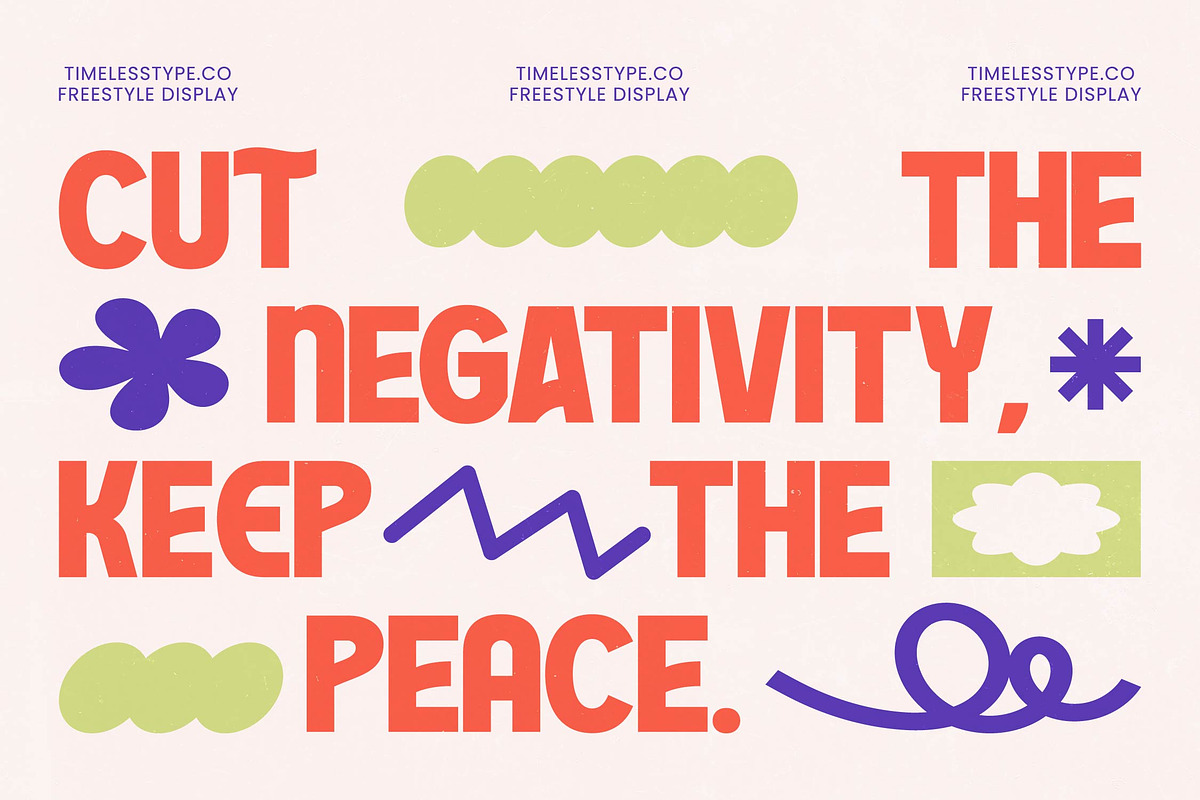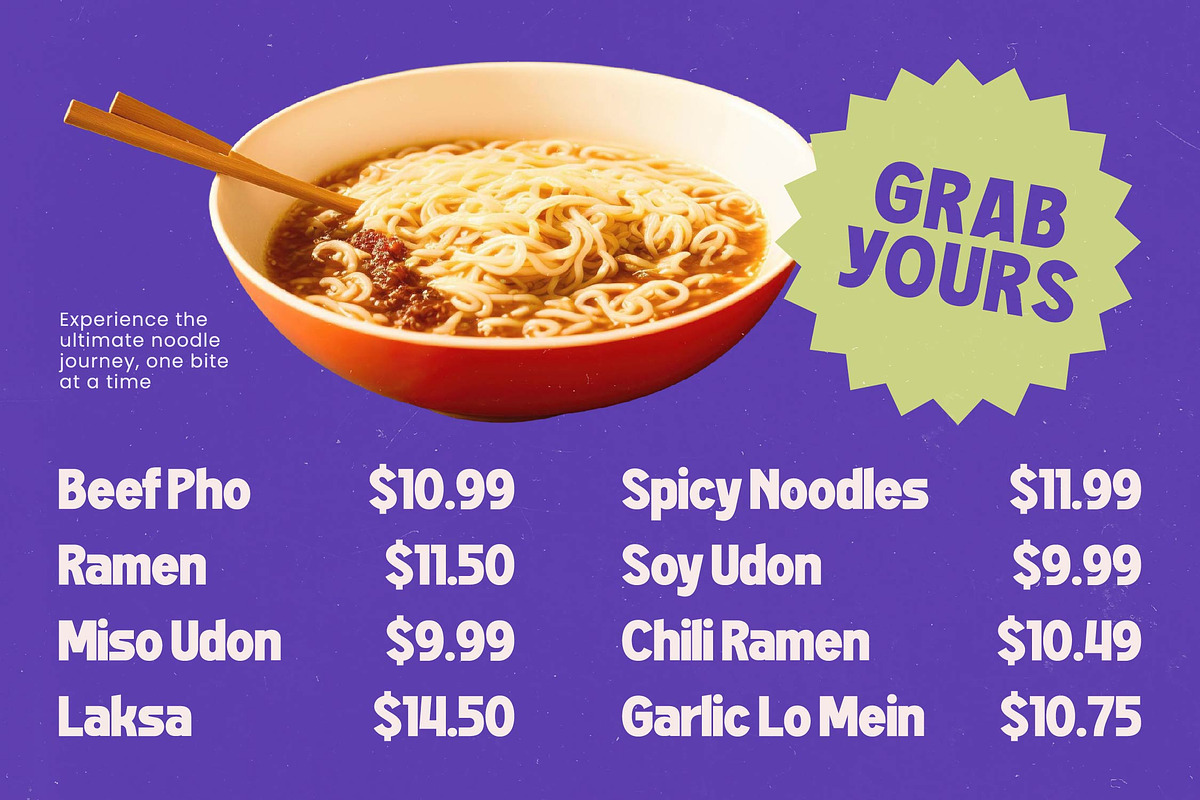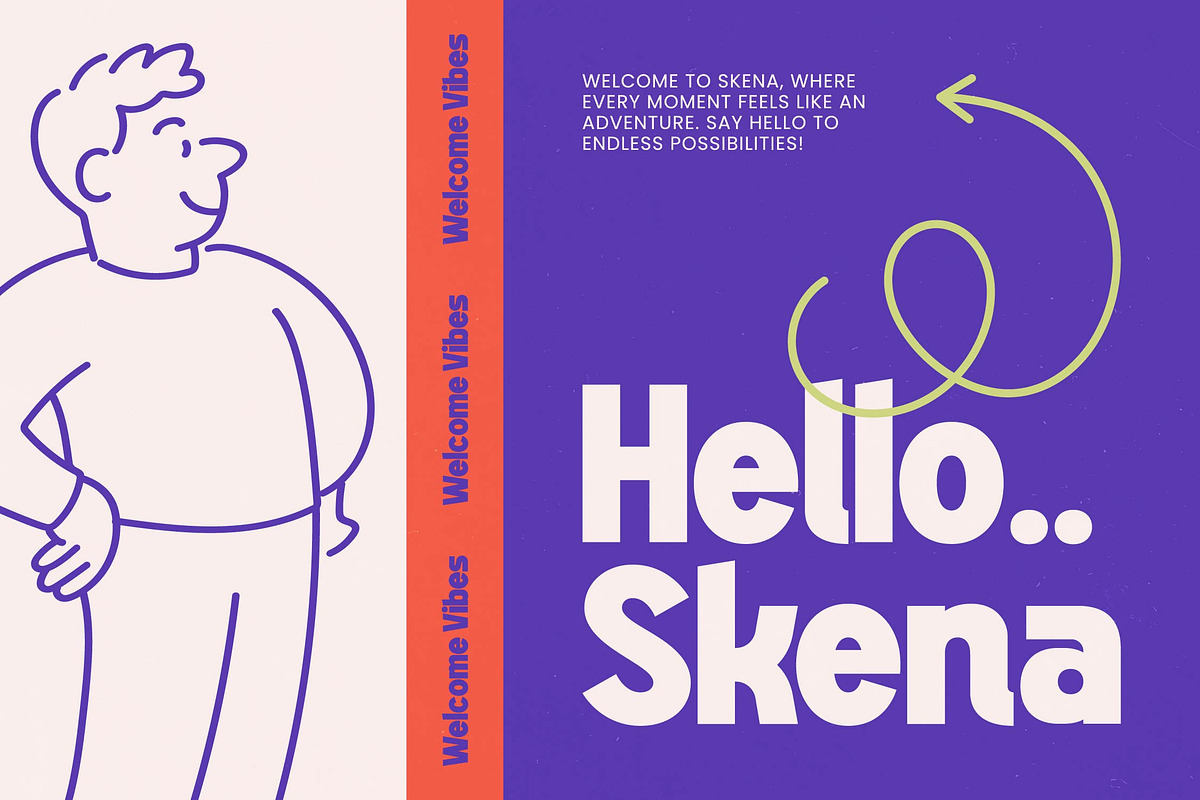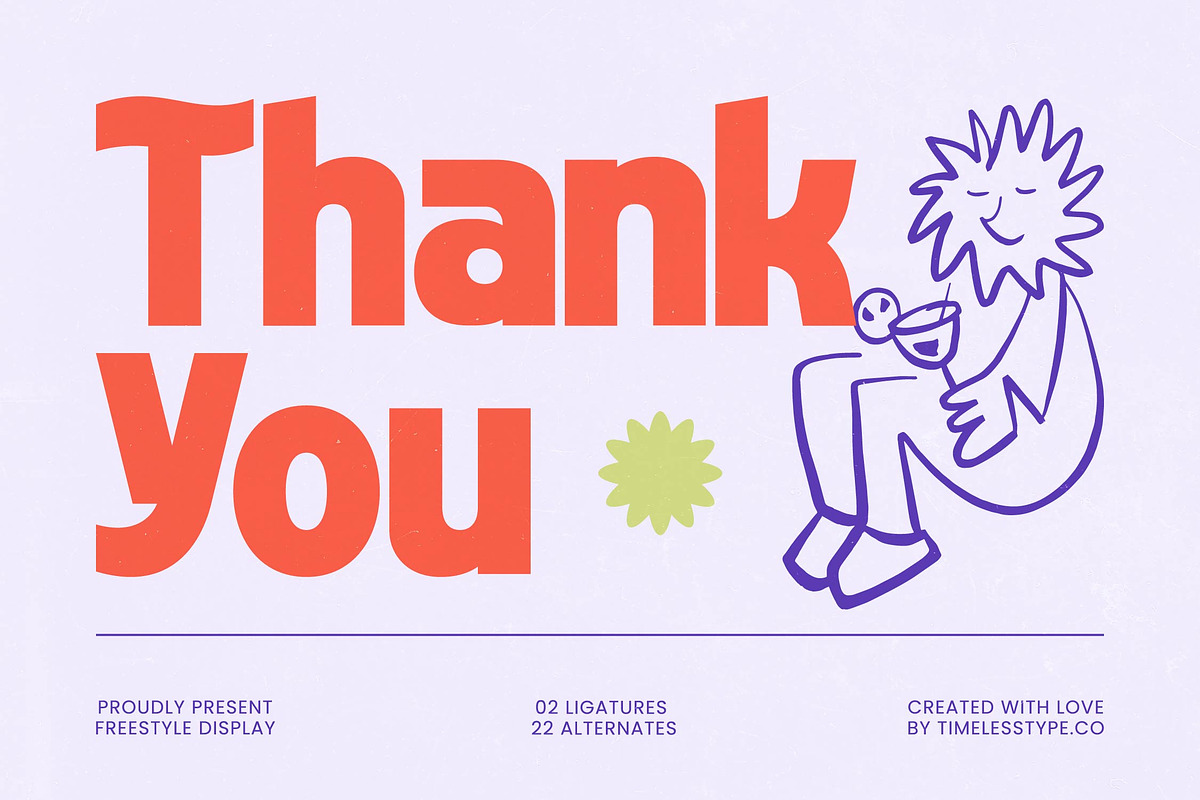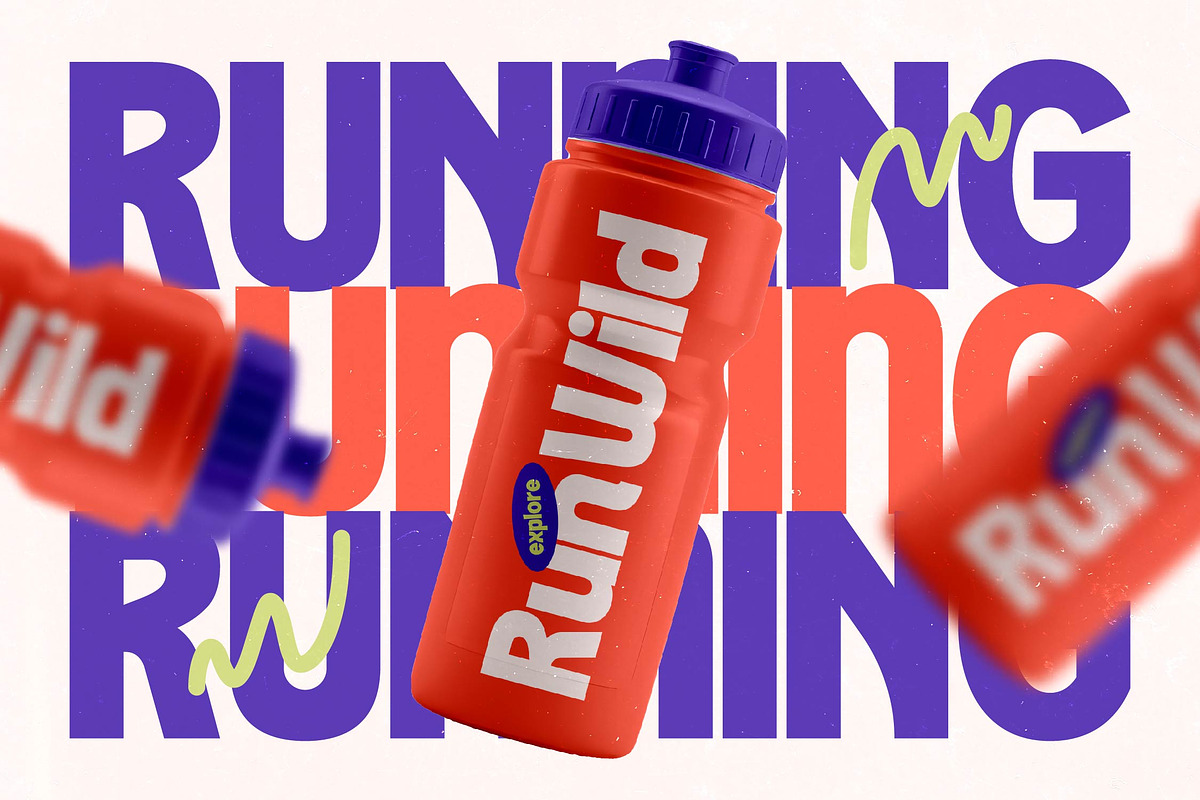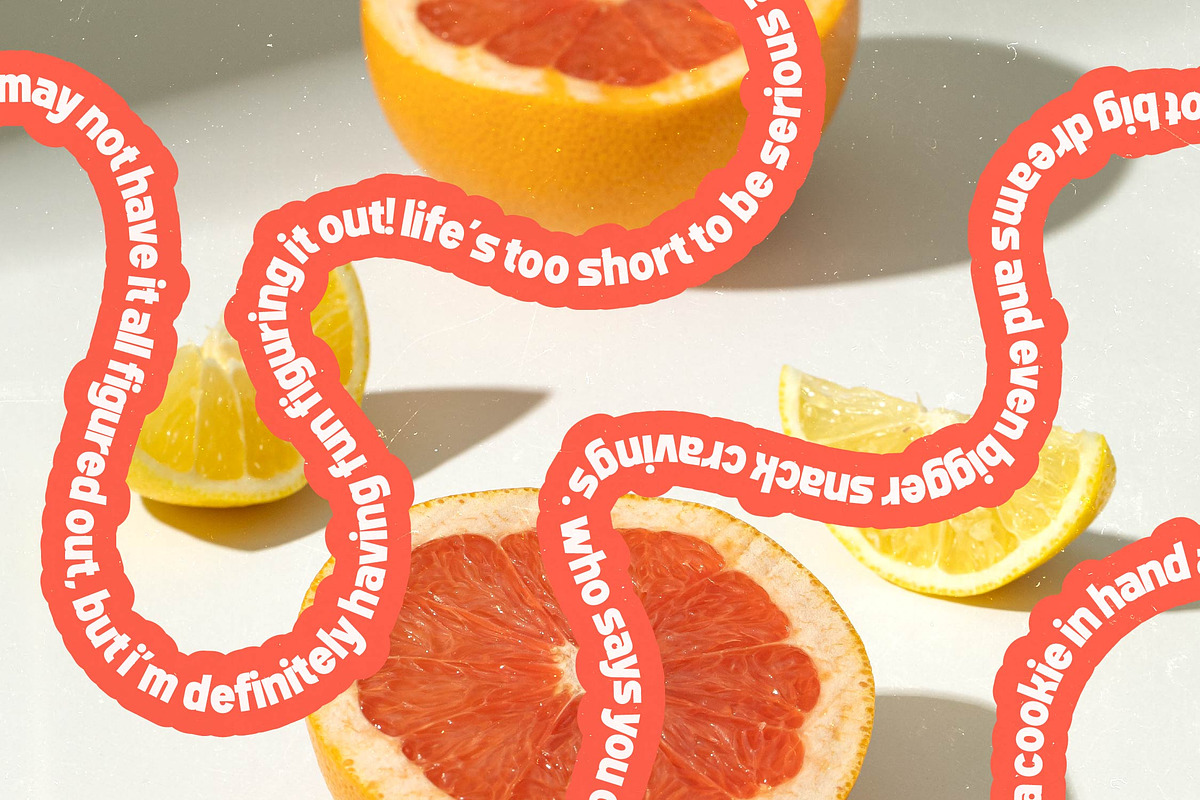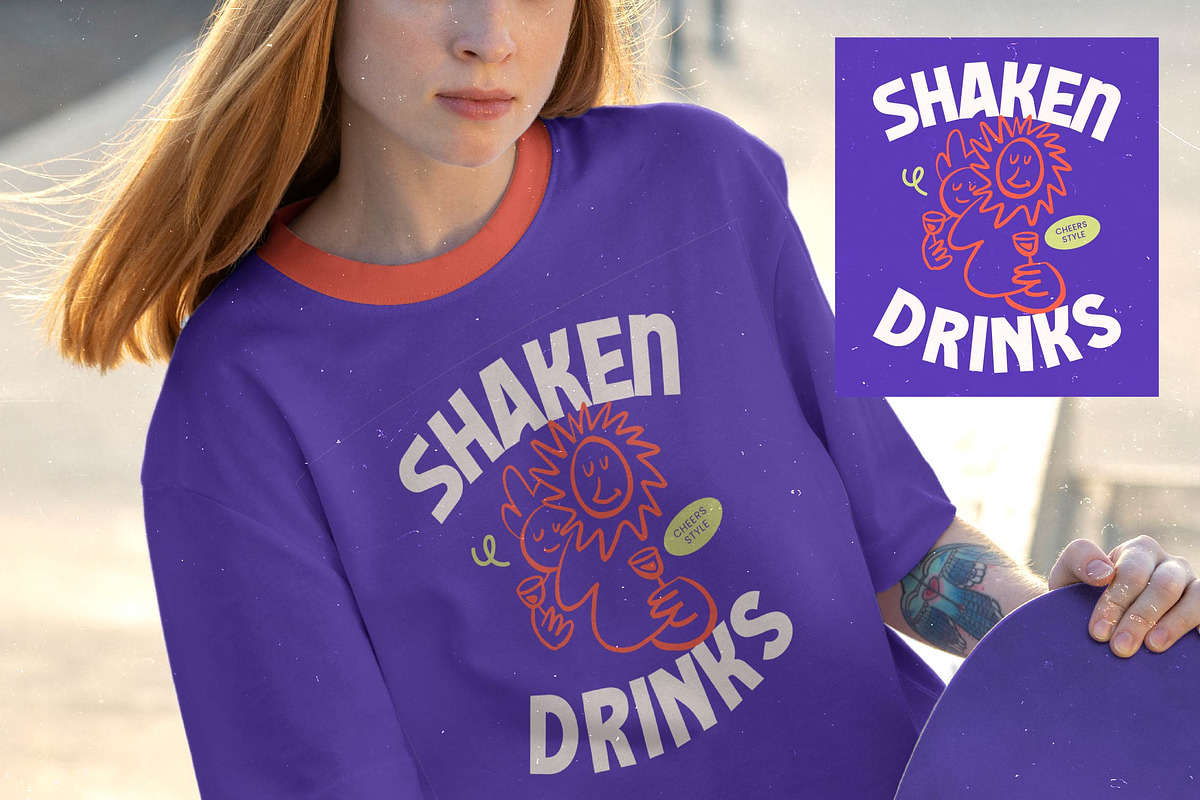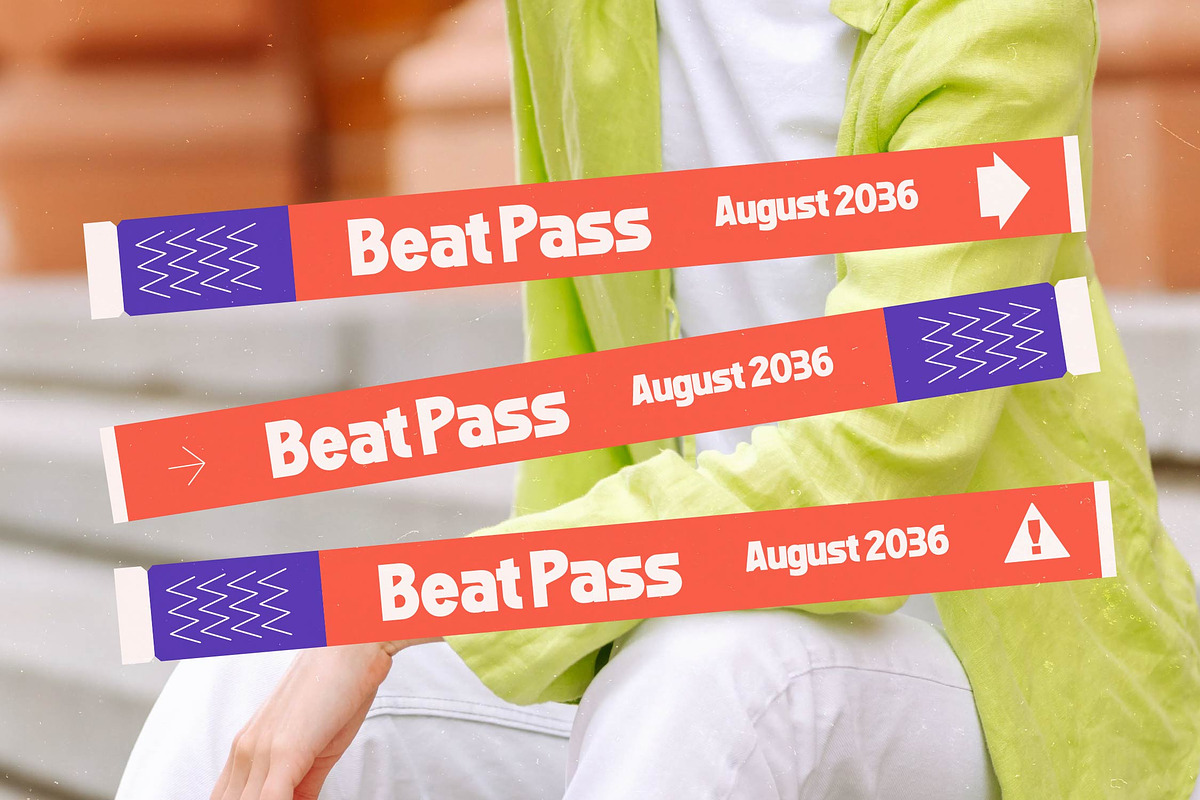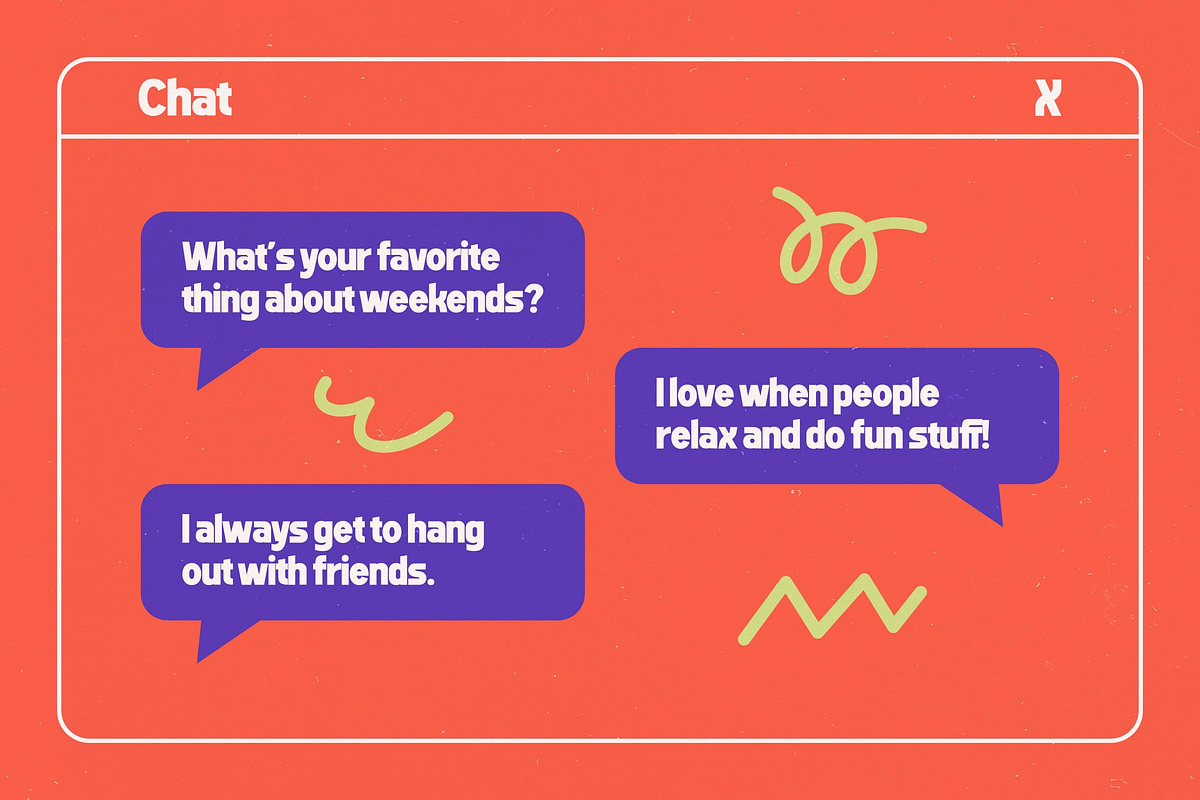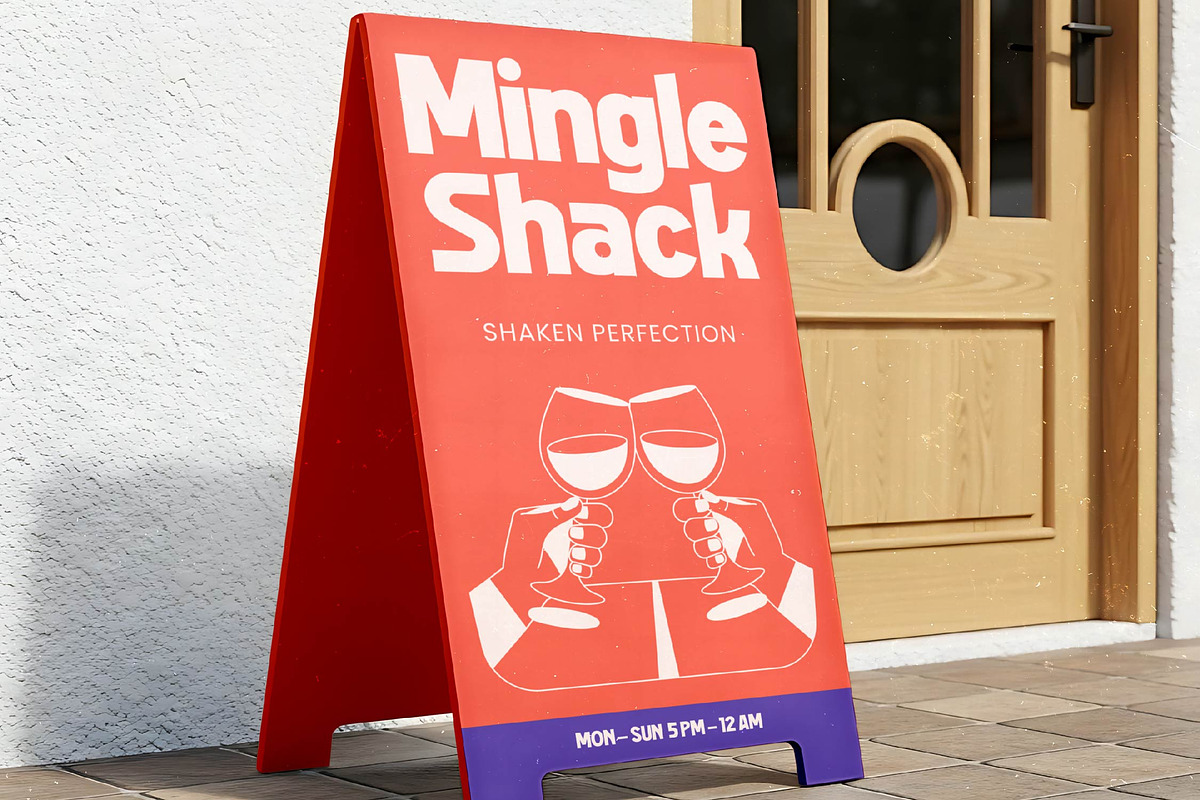
Simple Gudays Freestyle Display
Discover the unbridled joy of Simple Gudays, a typeface designed to infuse your creative projects with a sense of playful sophistication and bold confidence. This font is more than just characters on a page; it is a celebration of vibrant energy and effortless style.
Inspired by the sun-drenched aesthetics of retro surf culture and mid-century graphic layouts, this typeface captures a freestyle spirit that feels both nostalgic and fresh. Its heavy weights and organic terminal curves evoke a sense of handmade craftsmanship meeting professional digital precision.
When your project demands a modern serif display aesthetic with a heavy dose of branding impact, this font delivers a powerful visual punch. It balances the refinement of luxury typography with the approachability of a high-contrast serif alternative, making it an essential editorial font for any contemporary designer's toolkit.
Staying ahead of the modern serif trend, this typeface embraces character-driven typography to stand out in a crowded digital landscape. It aligns perfectly with the current shift toward expressive, editorial display fonts that prioritize personality without sacrificing legibility or professional polish.
This versatile typeface is the ultimate solution for high-end logo design and comprehensive branding systems that need to feel unique. Whether you are crafting layouts for an editorial spread, designing vibrant packaging, setting the tone for a modern wedding, or leading a fashion campaign, it provides the perfect typographic voice.
To ensure maximum creative flexibility, the package includes functional ligatures and a diverse array of alternates to customize every headline. Full multilingual support and a comprehensive set of international characters make it a global-ready asset for any project needing custom-feeling swashes and glyphs.
Numerals
Punctuations (OpenType Standard)
Accents (Multilingual Characters)
Ligatures and Alternative Style Stylistic Set